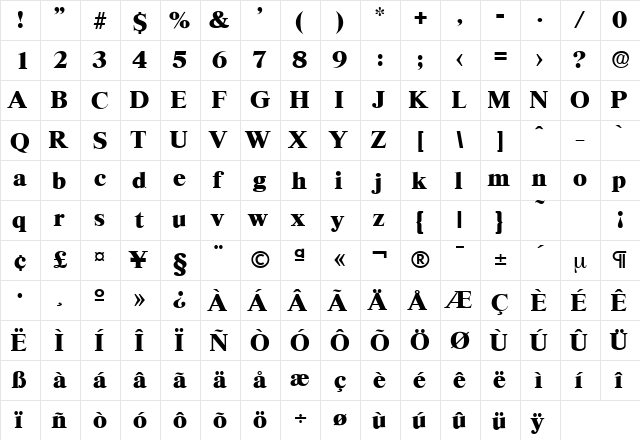
Thames-Serial-Heavy Regular
Design Context for Thames-Serial-Heavy Typeface
Thames-Serial-Heavy is a composed and adaptable typeface that performs quietly and consistently across a wide range of design contexts.